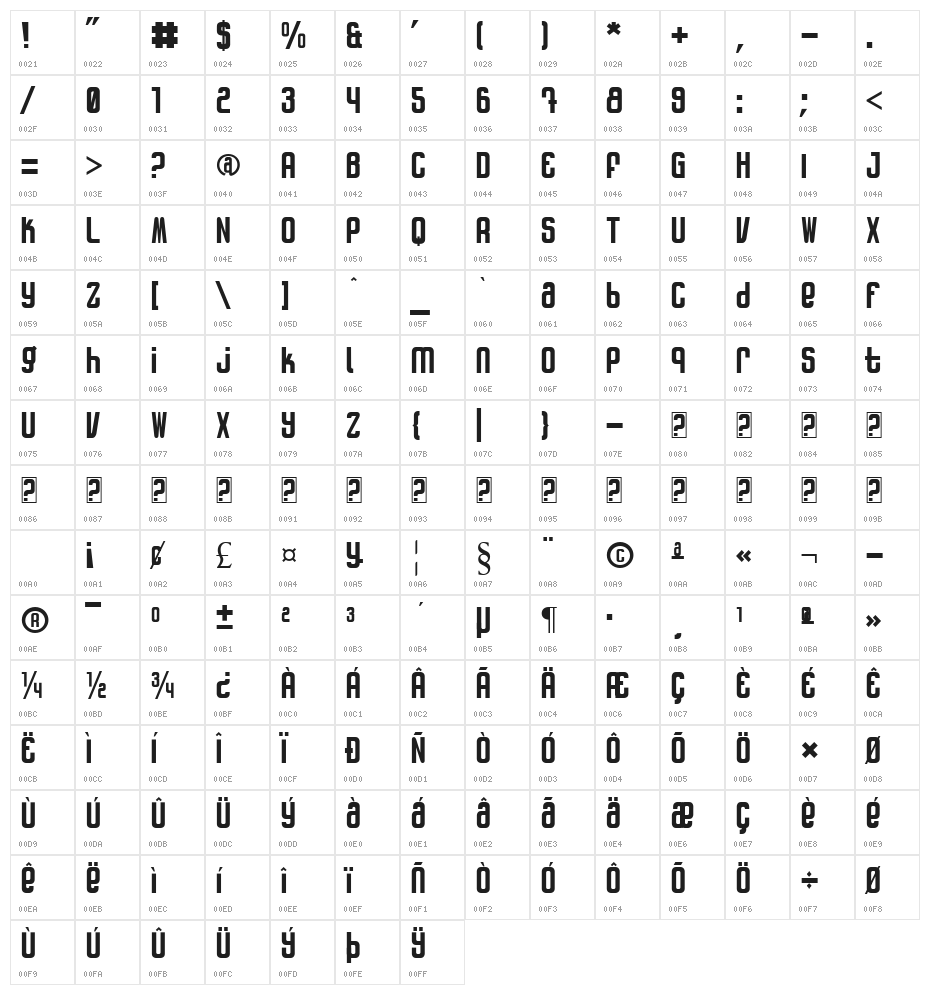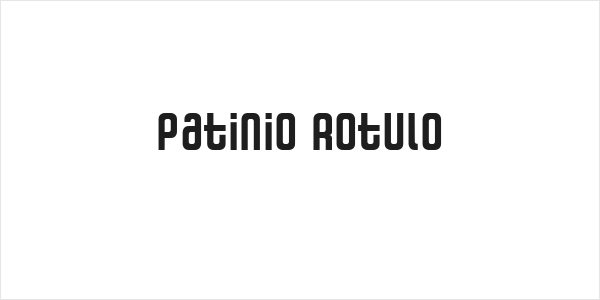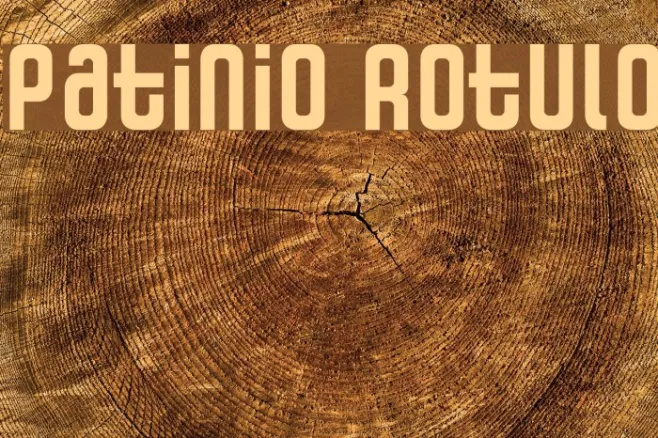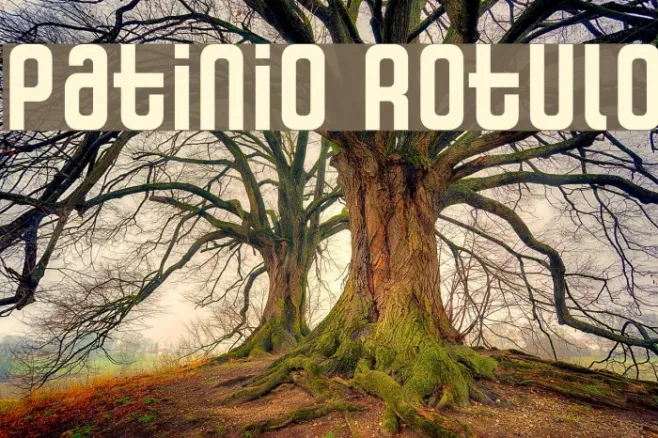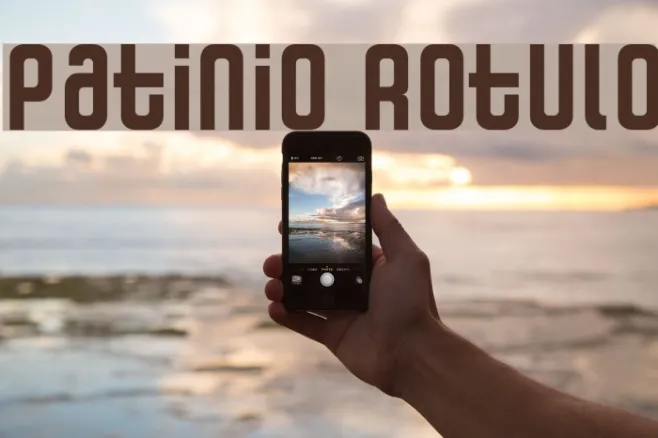
Patinio Rotulo Font
Patinio Rotulo Description
This font features a bold and robust design with a modern, geometric aesthetic. The characters are uniformly thick, providing a strong presence on the page. The uppercase and lowercase letters maintain a consistent style, with rounded edges and a slight industrial feel. The numerals are clear and easy to read, complementing the overall design. Special characters are included, maintaining the same bold style. This font is ideal for projects that require a strong, impactful look.
| Proposed Projects | Ideal for branding, posters, signage, and any project needing a strong visual impact. |